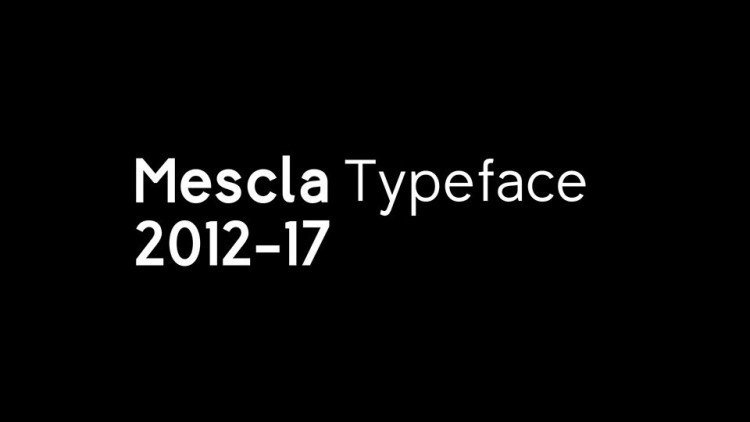
Mescla Free Font Family
Mescla Font is a sans-serif grotesque typeface inspired by Akzidenz Grotesk, Gill Sans and Future. It comes in Regular and Bold weights with matched Italics, contains a complete glyph set, including multilanguage support.
Mescla font family is perfect for text and titles, web and app design.